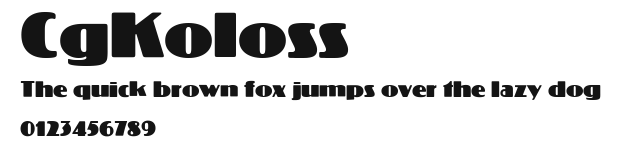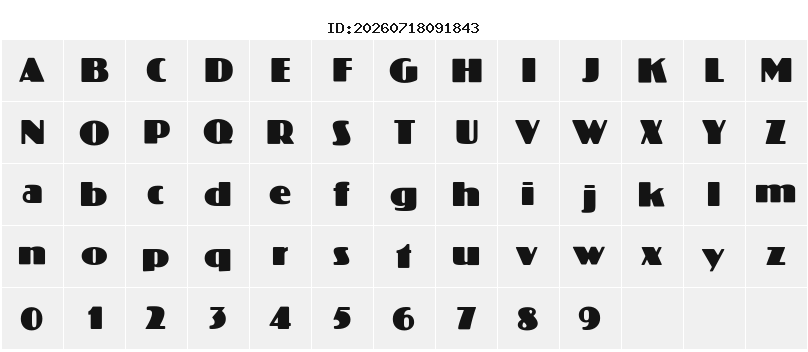
• Font Name: CgKoloss
• Full Font Name: CgKoloss
About CgKoloss.ttf
CgKoloss.ttf is a modern, elegant sans-serif font designed for ultimate readability and visual harmony. Perfect for branding, headlines, web design, and print materials.